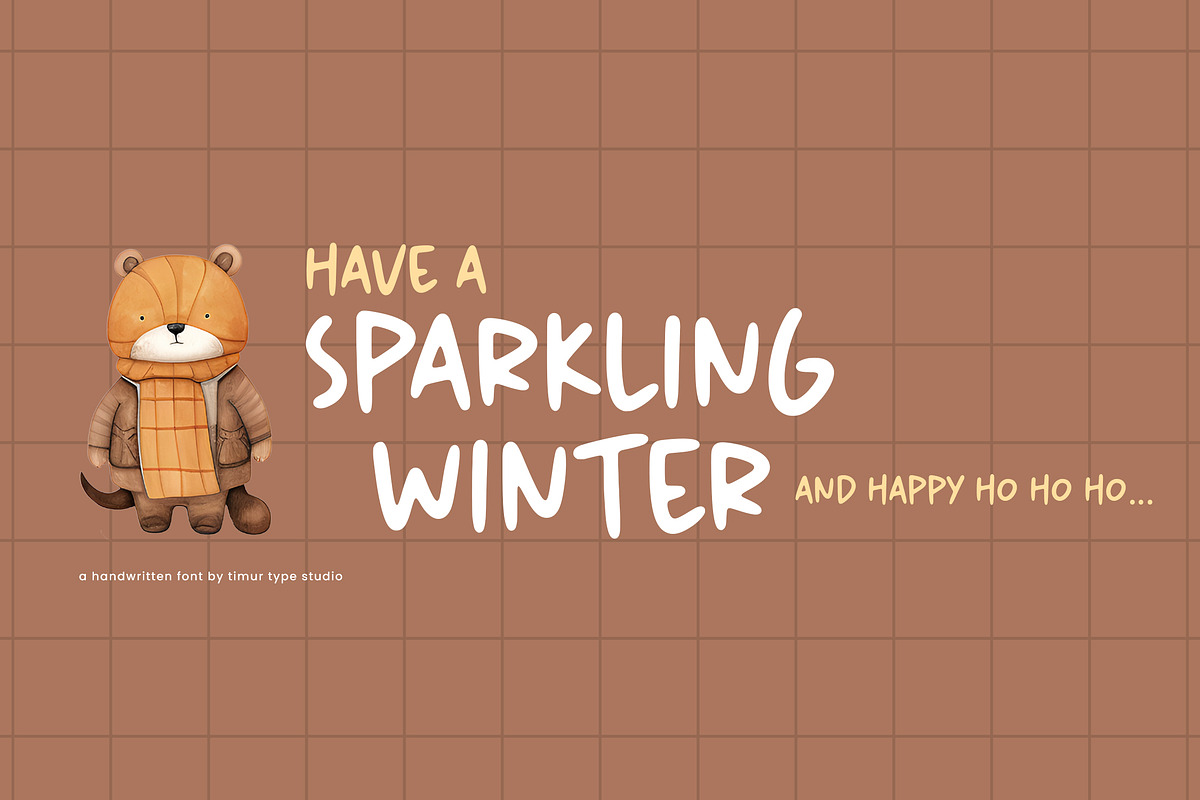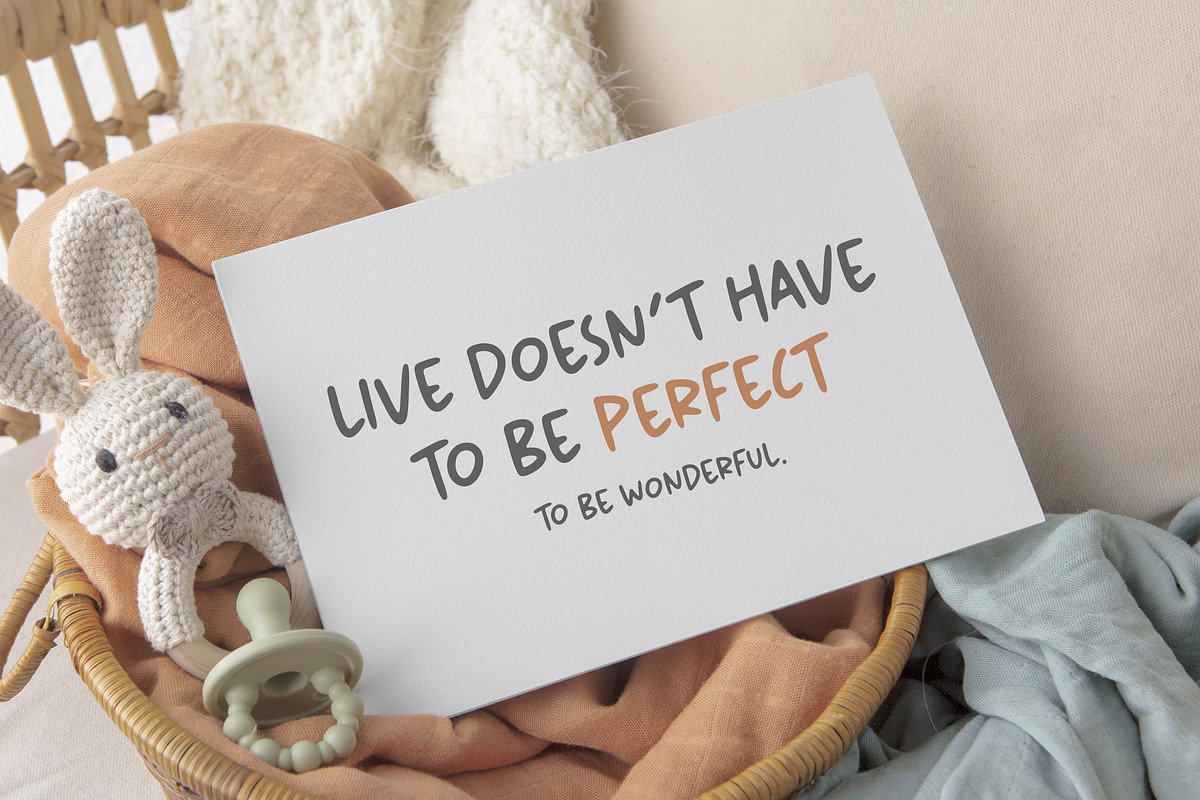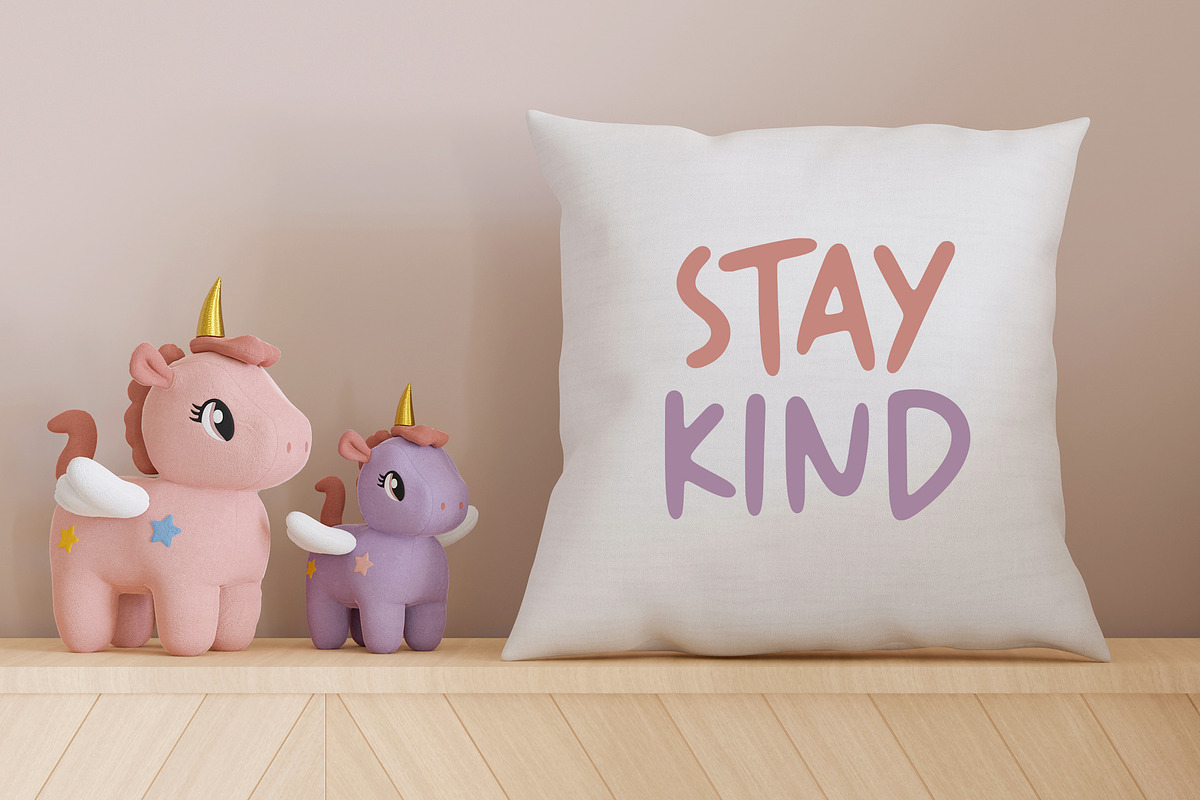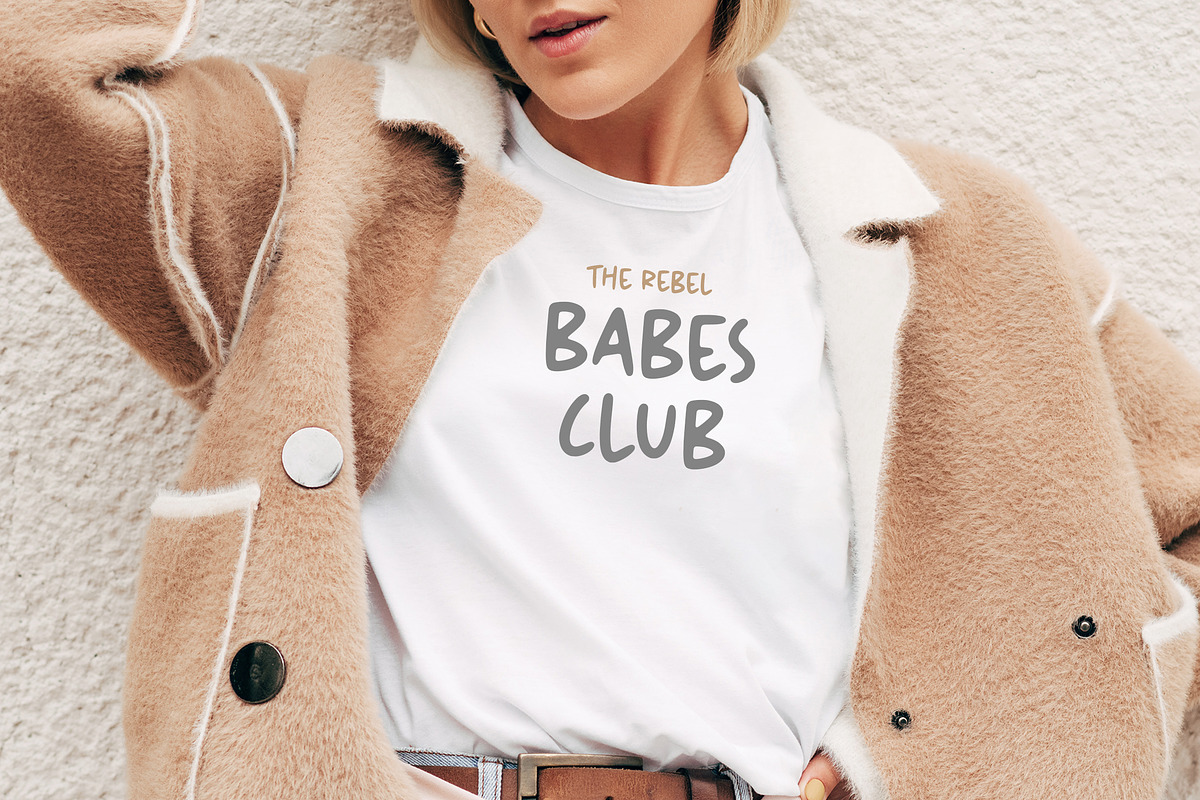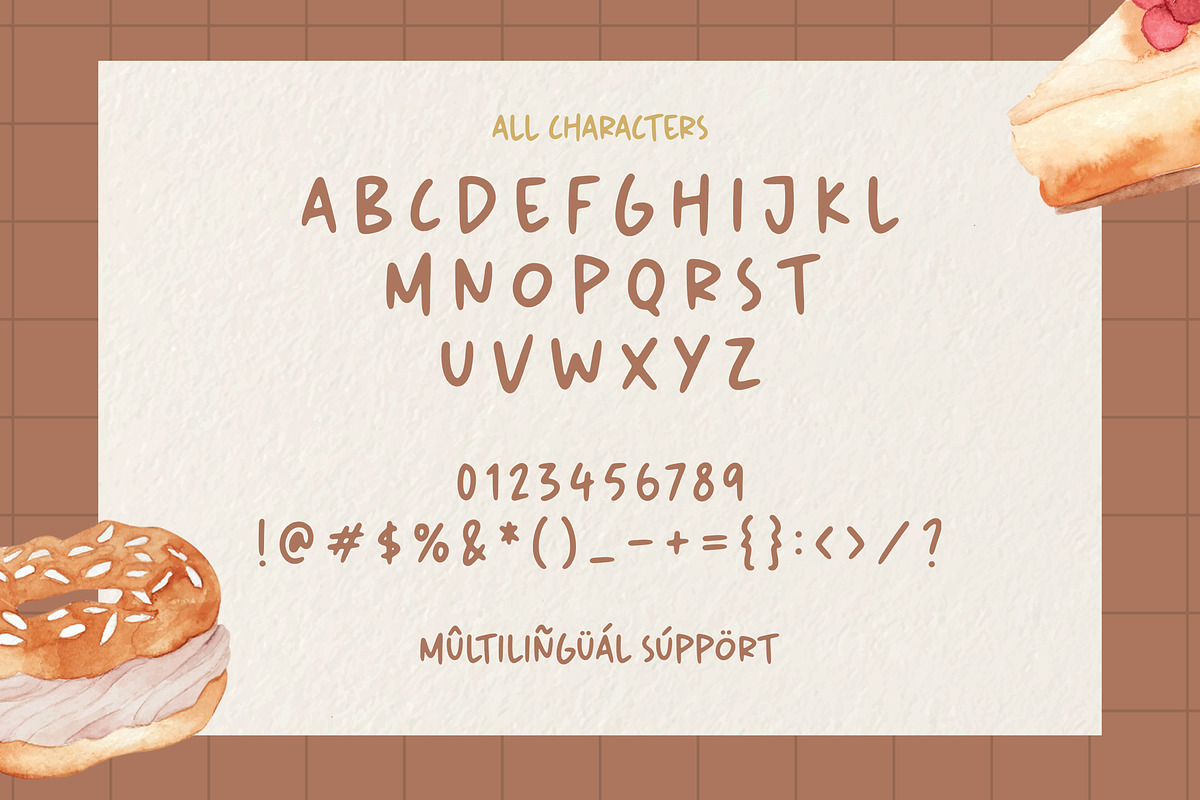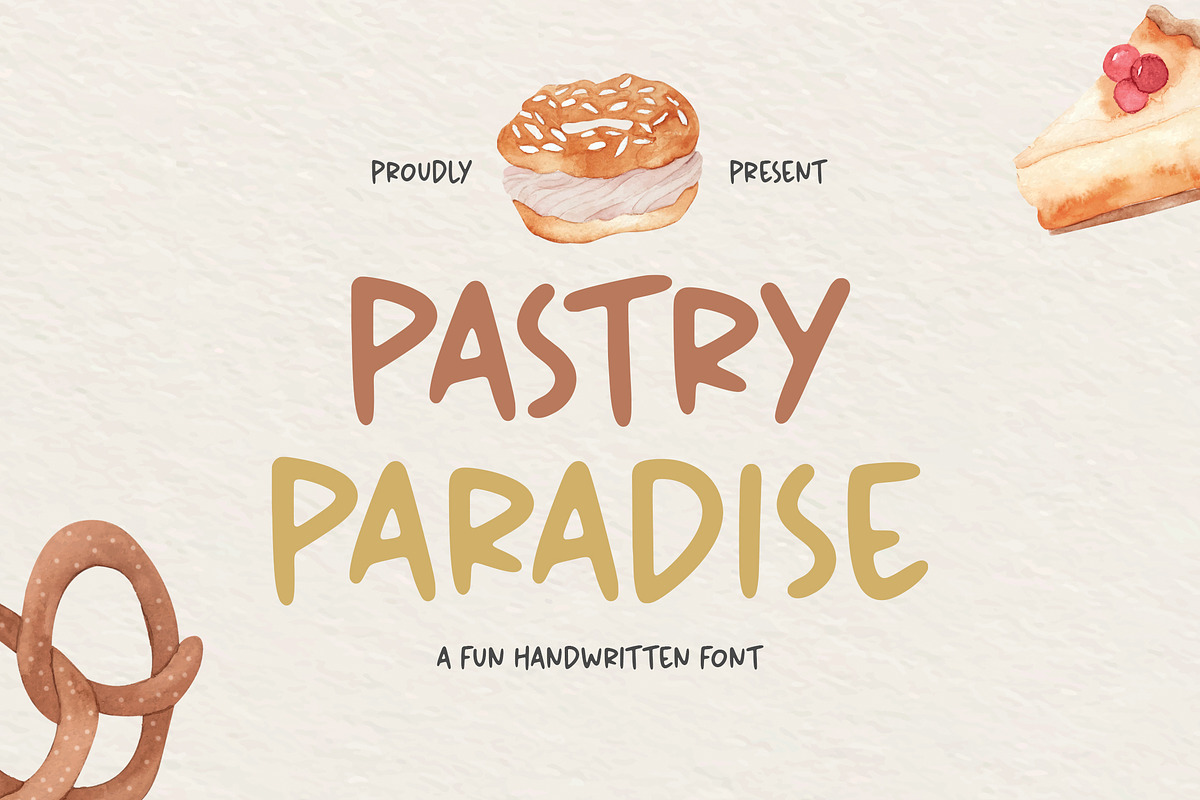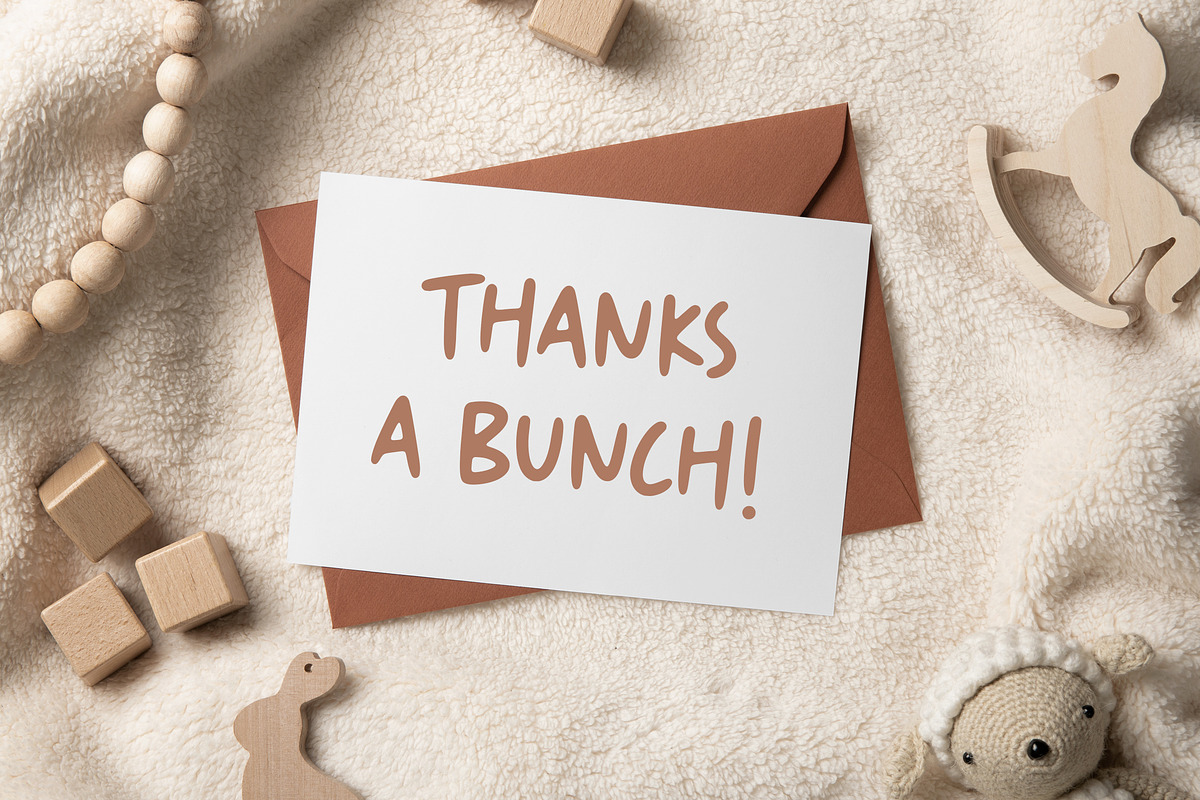
Pastry Paradise - Fun Handwritten
Proudly Presenting Pastry Paradise
Pastry Paradise fun handwritten font display features lines with smooth and unique edges, giving it a distinctive look. This font resembles handwriting. With attention to detail and beautiful strokes in each line, this font adds a touch of sophistication and distinctive style to any design or text it is applied to. The distinctive striped nature of this font makes it perfect for creating attention-grabbing titles, logos, or other elements.
Pastry Paradise Font also supports multilingualism. Enhance your designs with our original fonts, feel free to comment or provide feedback, Enjoy the fonts 😊